Do we have Burger King’s most recent and successful rebranding campaign to thank for that? I don’t know, but it looks like many font designers are going to try and emulate those fun retro vibes going forward.
1. Crafty Signs
Crafty Signs is a display font that draws inspiration from old game shows — think Family Feud or anything on Nickelodeon in the ‘90s. This playful bubble font would work well for brands targeting children or ones that have a big personality and old school vibe.
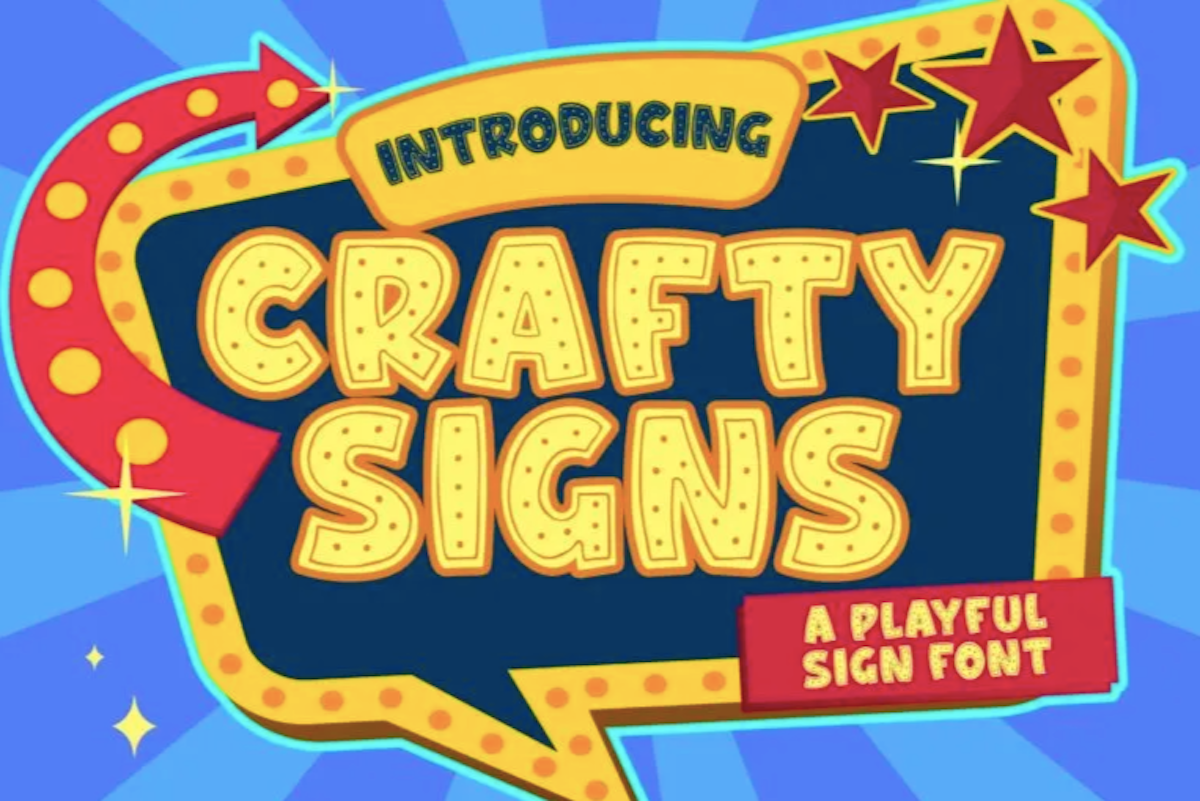
2. Epicene Collection
Epicene is a Baroque font with beautifully exaggerated calligraphic details (like swirls and strokes). There are two families within Epicene — one for Display and one for Text — so you can use this single font collection to style your entire site.
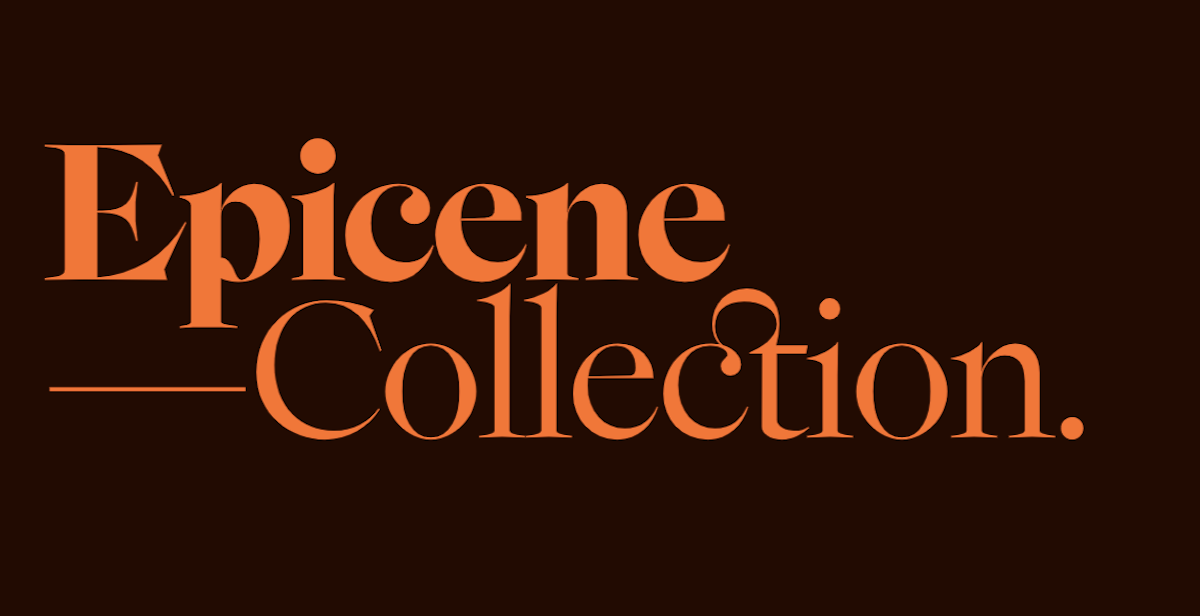
3. Kingsad
It’s hard to call Kingsad a sans serif font when it has such a distinctly unique design to it. The font’s creator suggests using Kingsad for branding. I’d add that the curious structure of the characters would make this font perfect for branding in the science and tech spaces.
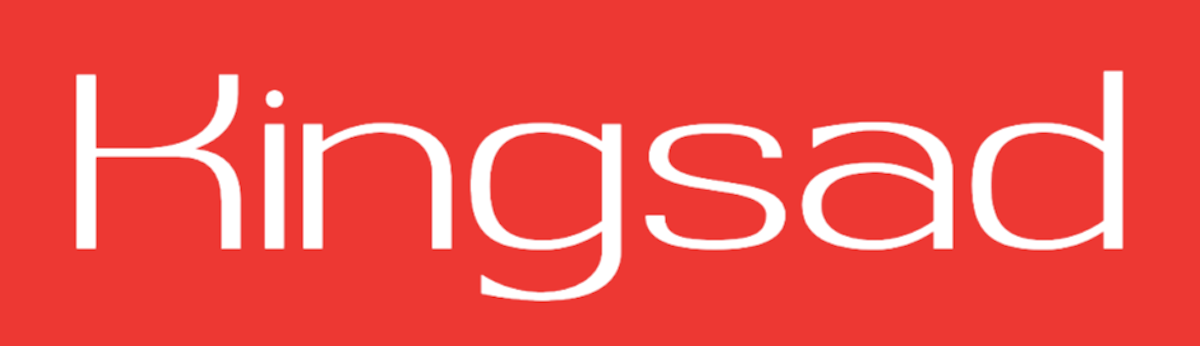
4. Lucius
Lucius is a lively-looking font, combining serif and sans serif characteristics. There are eight weights in this font family, which can be used both for display and text purposes.
5. Manju
Manju is a retro font that the designer describes as “soft and chewy”. You don’t see it as much in the thinner styles, but the bolder, thicker styles definitely feel like the kinds of fonts you’d see on food packaging and candy wrappers in the ‘70s and ‘80s.
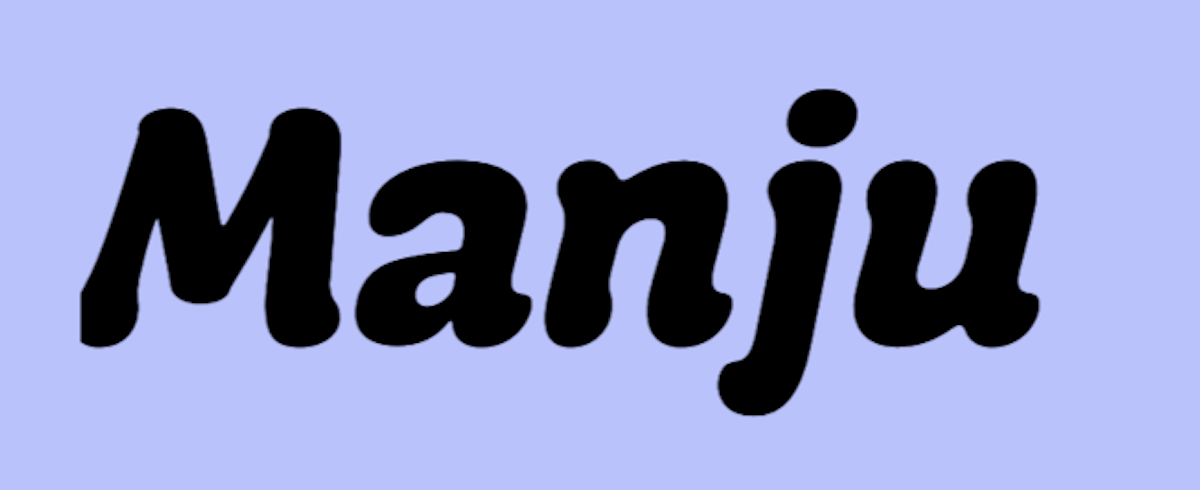
6. Midnight Sans
Midnight Sans is a font that comes in a single weight (Black) and also has two variants: Midnight Sans RD and Midnight Sans ST. It was originally designed for When Midnight Comes Around, a book about the emerging punk music scene in NYC in the ‘70s, so it has a somewhat grungy, nostalgic feel to it.
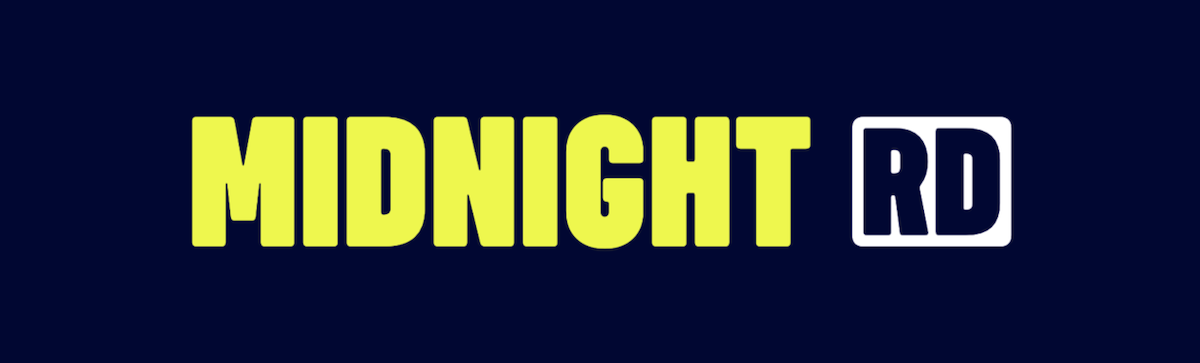
7. Nagel
Nagel is technically still in beta, so this may not end up being the finished font when it’s done. For instance, they still have the italic and variable styles to develop. That said, it’s a neat-looking sans serif font — easy to read, but has a bit of an edge to it as well.
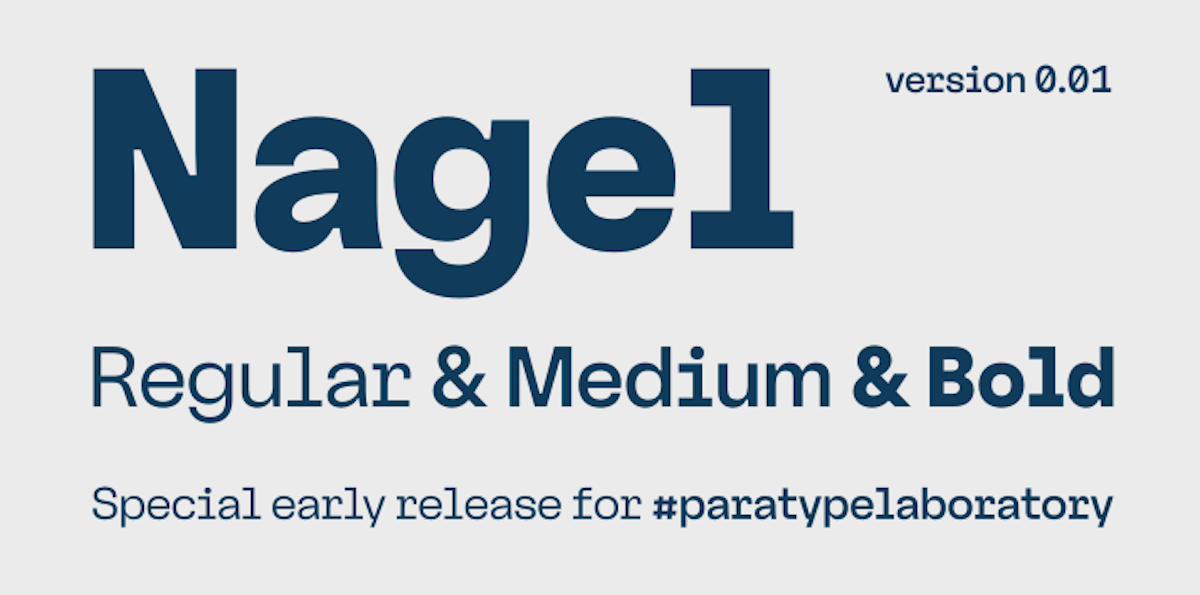
8. Painless
What you see is what you get with Painless. It has just one style — a textured, bold sans serif. Because of its casual, hand-brushed feel, it won’t fit well with just any brand. Where it would look cool is on websites for brands that sell hardware, furniture, and other DIY products.
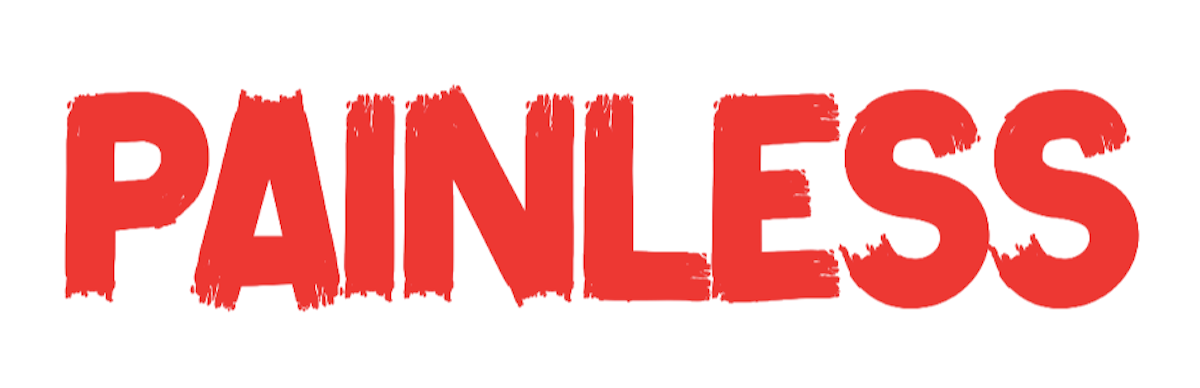
9. Recipient
Recipient is a monospaced font inspired by the typefaces that appeared on old typewriters. With five weights and a set of matching italics, this font can be used for standard paragraph text as well as for smaller headlines.
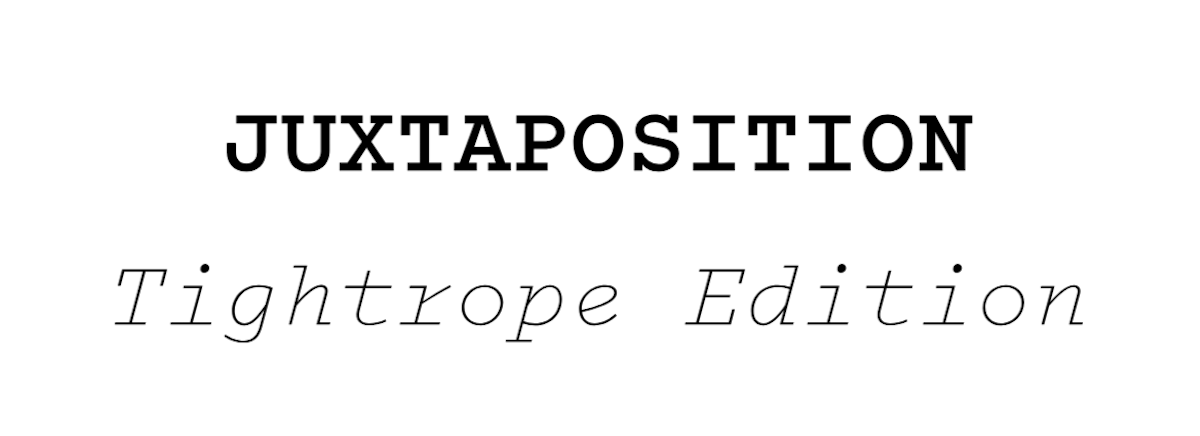
10. Sea Angel
Sea Angel is a beautiful serif font with elegant curves. This easy-on-the-eyes font would look great on websites for high-end retailers, luxury magazines, museums, fashion brands, beauty companies, and more.
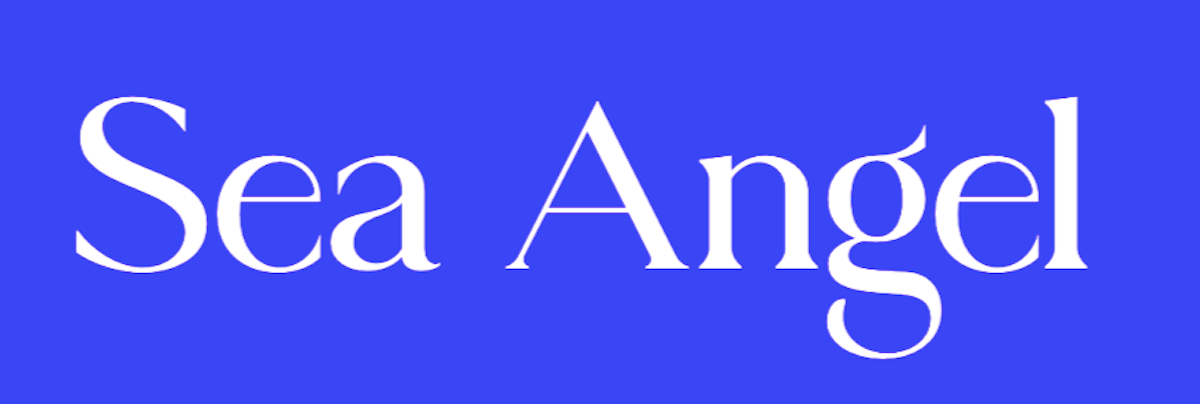
11. Smack Boom
Comic books and graphic novels will never go out of style. Especially as their stories branch out into other channels, like TV and movies. Smack Boom will enable you to bring that exciting and heroic look to your logos and web designs.
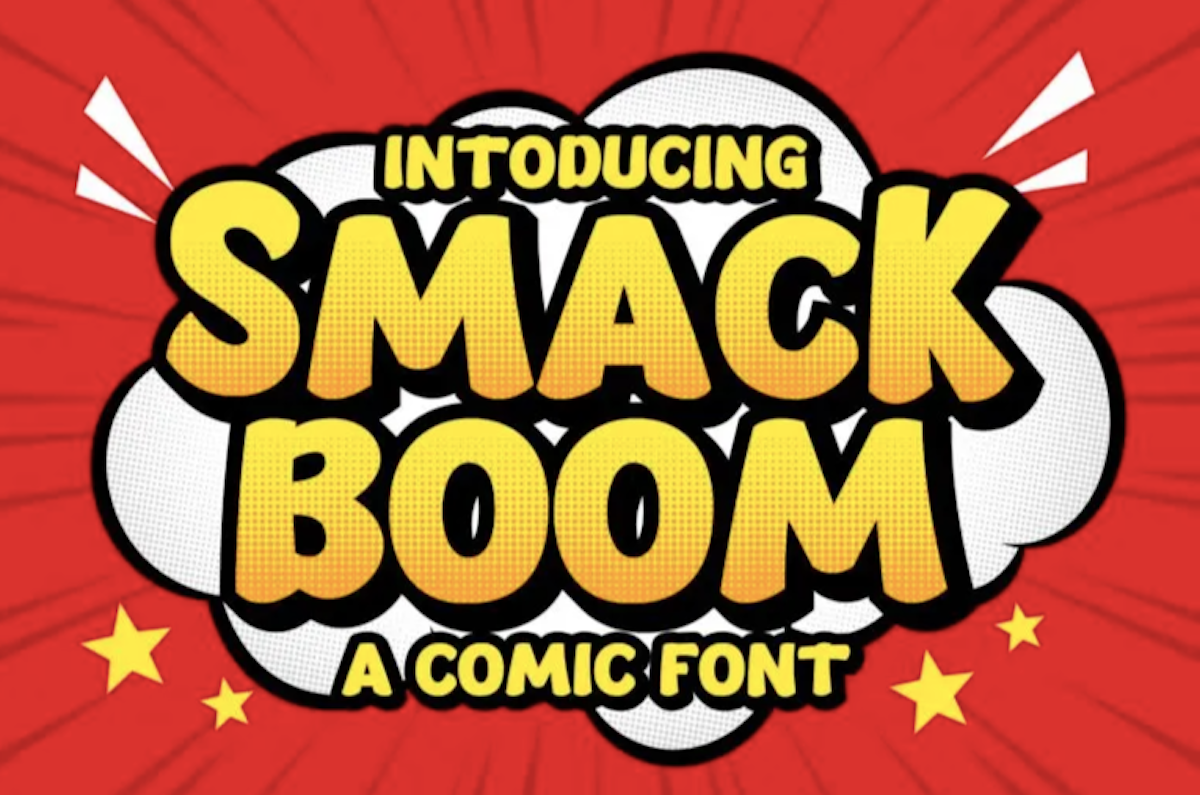
12. Stoner Sport
Stoner Sport is an outline display font that brings a modern touch to a retro sporty style. This font would work especially well for sporting industries as well as businesses that are associated with them—retailers, sports complexes, automakers, publications, and so on.
13. Stormland
Stormland is a good example of what makes Scandinavian design so striking. The lettering is clean and simple, built using uniformly sized lines. However, the characters are wide, which gives them a sturdy and strong feeling as well.
14. Tellumo
Tellumo is a humanist sans serif font family, ranging in styles from Thin to Extra Bold. What you see in the example below demonstrates some of the charm and warmth you can add to branding and designs with Tellumo’s swash caps. However, if you want to keep things simple and reap the benefits of the font’s clean and tidy design, you can use the regular character set.
15. Yamet Kudasi
Yamet Kudasi is a script font that comes in just the one style. Based on where it’s used (like in a signature line vs. a hero image) and the background it’s framed against, this versatile font can be used in a variety of ways and for various niches.